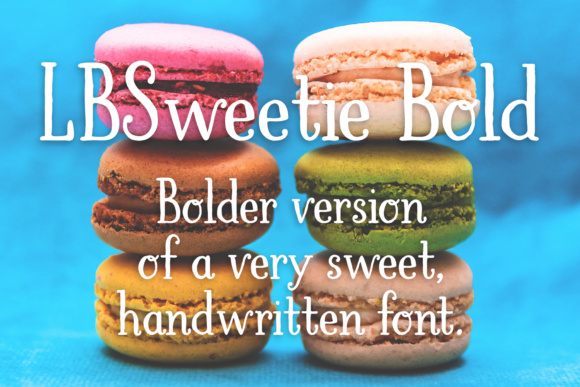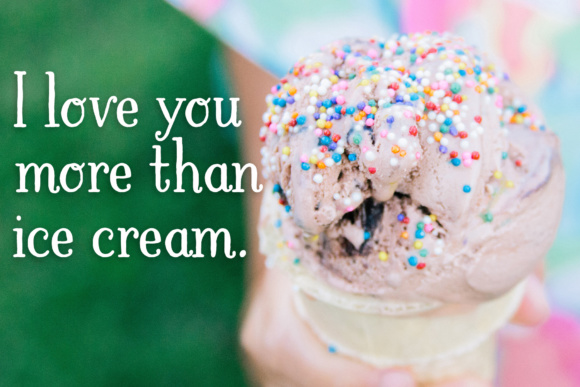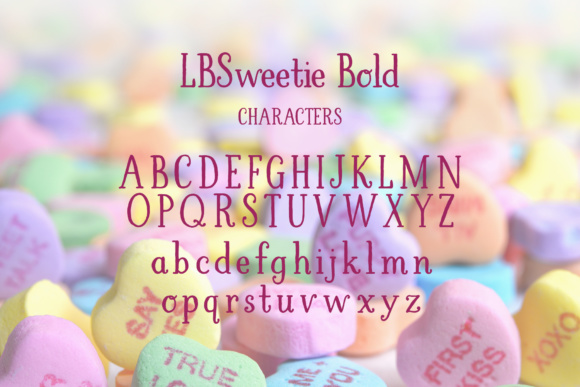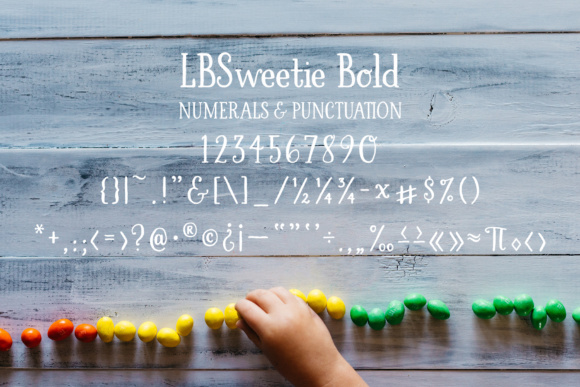
LBSweetie Bold Font
About LBSweetie Bold Font
LBSweetie Bold is a hand-lettered, slightly condensed, serif design with a little bit of curliness here and there.
LBSweetie Bold is the bolder version of the sweet, hand written font ‘LBSweetie’.